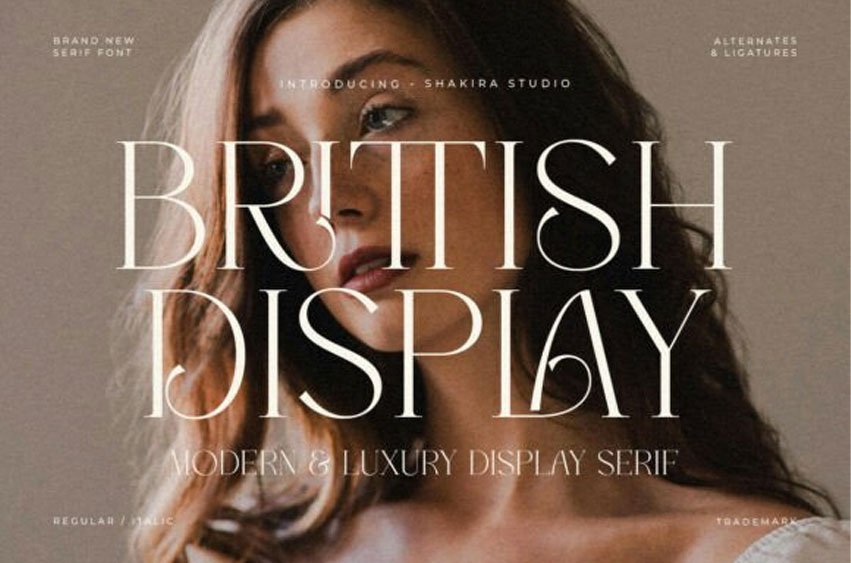
Brittish Font is a masterpiece of modern luxury, blending the timeless authority of a serif with high-fashion contemporary elegance. This sophisticated typeface is defined by its dramatic contrast between razor-thin lines and bold stems, further enhanced by breathtaking, sweeping ligatures and unique alternates.
Its tall, slender posture and graceful curves make it an elite choice for high-end branding, luxury editorial layouts, boutique logos, and upscale wedding stationery. Whether used in its sharp Regular or fluid Italic version, Brittish Display commands attention with a refined, chic aesthetic.